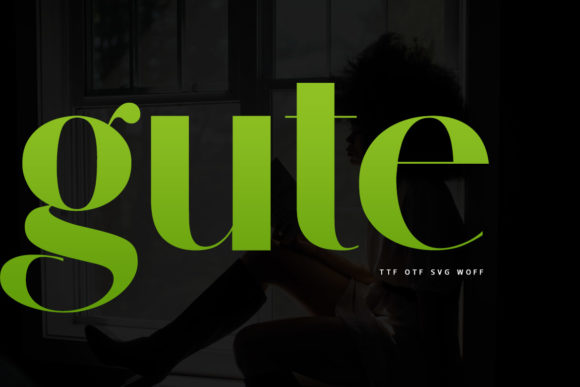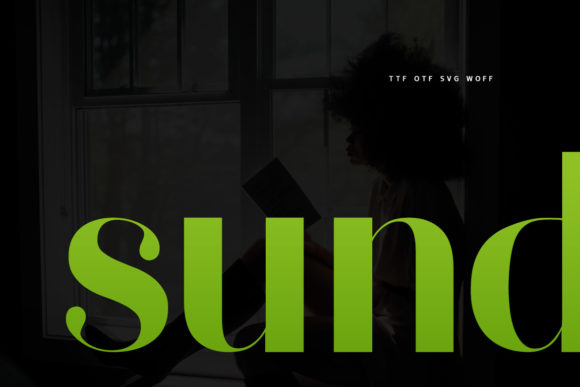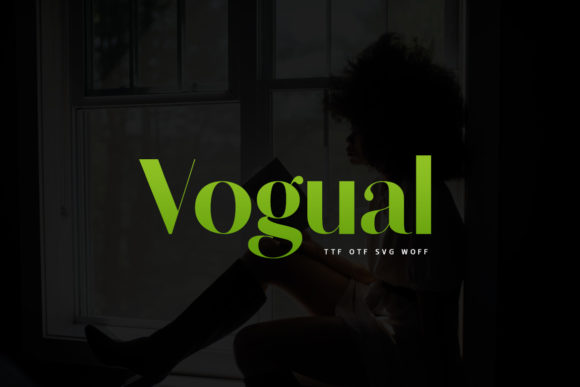
The Elusive Perfect Font: My Encounter with Carlotte
I’ll never forget the time I was working on a fashion branding project, and my client asked me to create a logo that exuded elegance and sophistication. I spent hours scouring the internet for the perfect font, but nothing seemed quite right. That was until I stumbled upon Carlotte, an elegant and modern display font that has since become a staple in my design toolkit.
Carlotte: A Designer’s Dream
Carlotte is defined by its smooth curves and sleek lines, making it perfect for fashion branding or editorial designs. Its elegant appearance adds a touch of sophistication to any project, and its versatility ensures that it can be used in a variety of contexts. Whether you’re working on a logo, a headline, or a title, Carlotte is sure to impress.
• ✨ Elegant and modern design
• ✅ Smooth curves and sleek lines
• 💯 Perfect for fashion branding and editorial designs
• 🎉 Highly versatile and adaptable
While Carlotte is an excellent font, it’s not without its quirks. For example, ⚠️ some users may find that the font is a bit too delicate for certain applications. Additionally, 🤔 the font may not be suitable for body text due to its display nature.
A Practical Guide to Using Carlotte
The Story Behind Carlotte
Carlotte was designed by a team of typographers who sought to create a font that embodied the elegance and sophistication of high-end fashion. Inspired by the curves and lines of luxury brands, Carlotte was crafted to be both modern and timeless. The font’s designers drew inspiration from the world of fashion, where elegance and sophistication are paramount.
Q: What is Carlotte font?
A: Carlotte is an elegant and modern display font perfect for fashion branding and editorial designs.
Q: What type of projects is Carlotte suitable for?
A: Carlotte is suitable for a wide range of projects, including fashion branding, editorial designs, logos, and headlines.
Q: Can I use Carlotte for body text?
A: While Carlotte is a beautiful font, it’s primarily designed for display purposes and may not be suitable for body text due to its delicate nature.
Q: Is Carlotte easy to read?
A: Yes, Carlotte is designed to be highly legible, even at smaller font sizes.